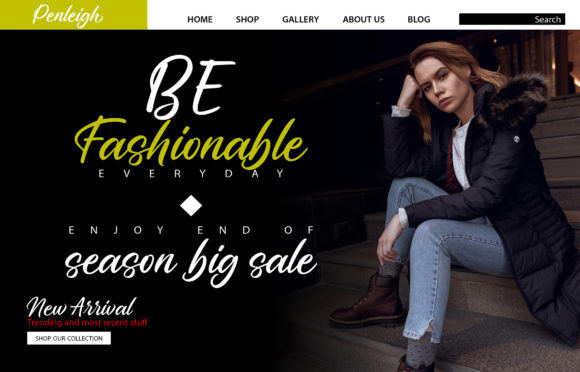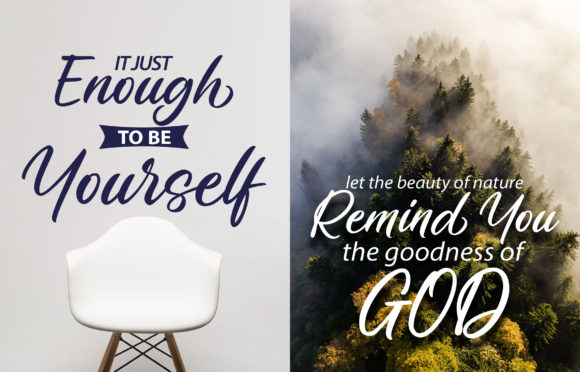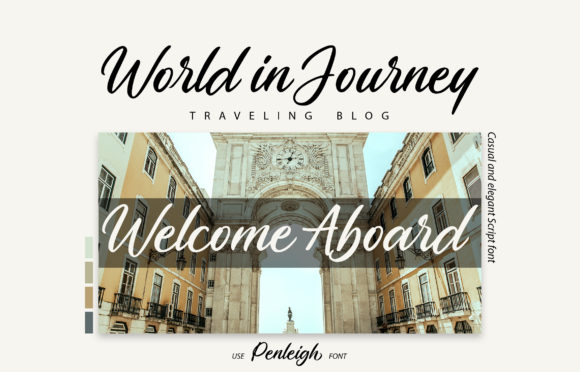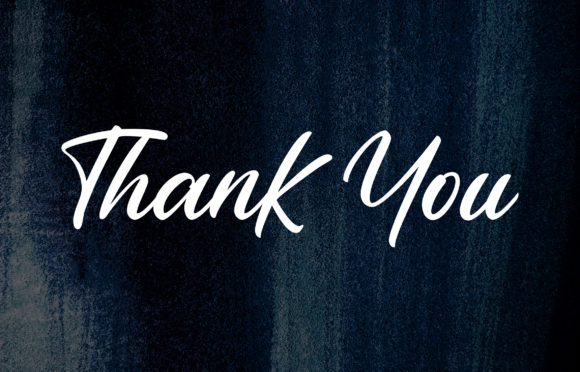
Penleigh Font
About Penleigh Font
Penleigh is a magical handwritten font carefully created with a touch of elegance. Use this amazing font to create gorgeous wedding invitations, beautiful stationary art, eye-catching social media posts, and cute greeting cards.